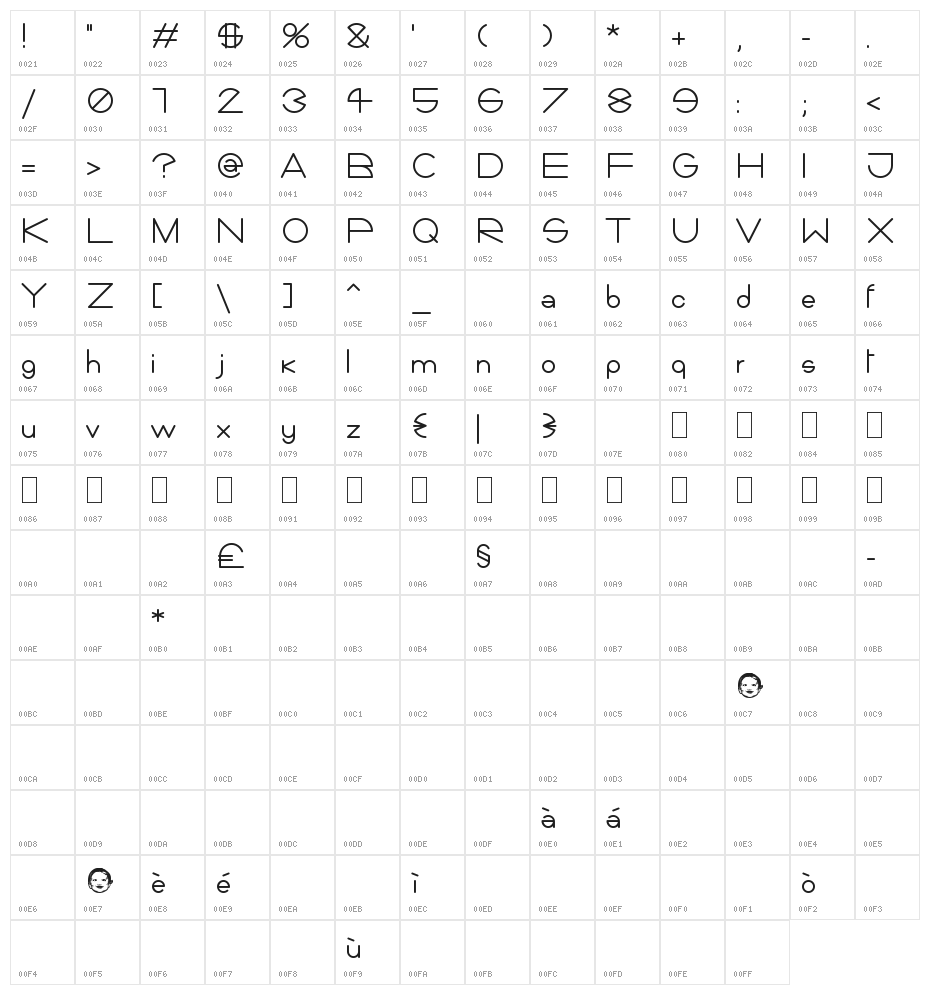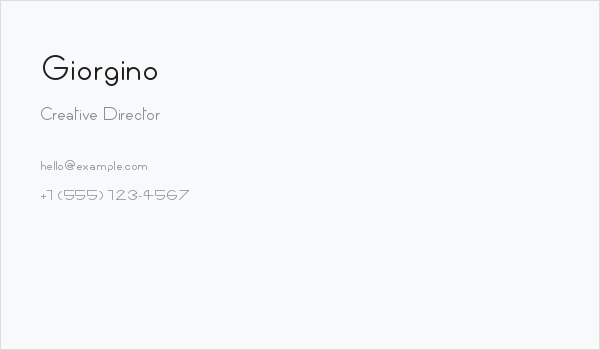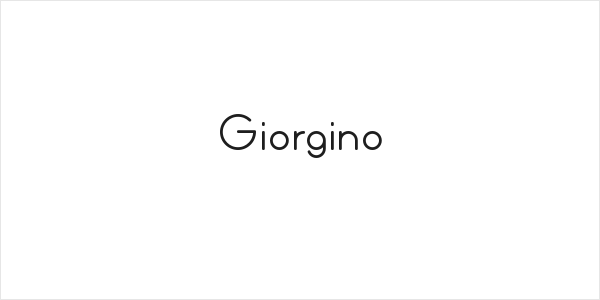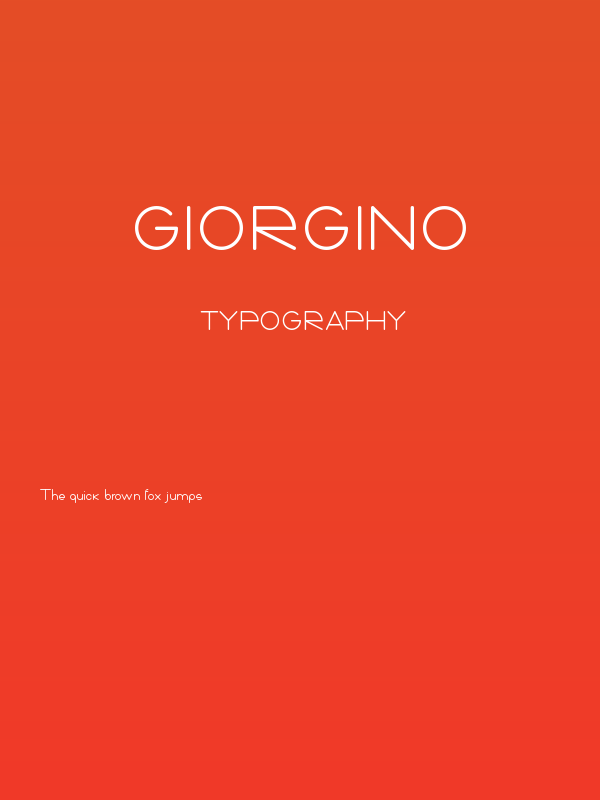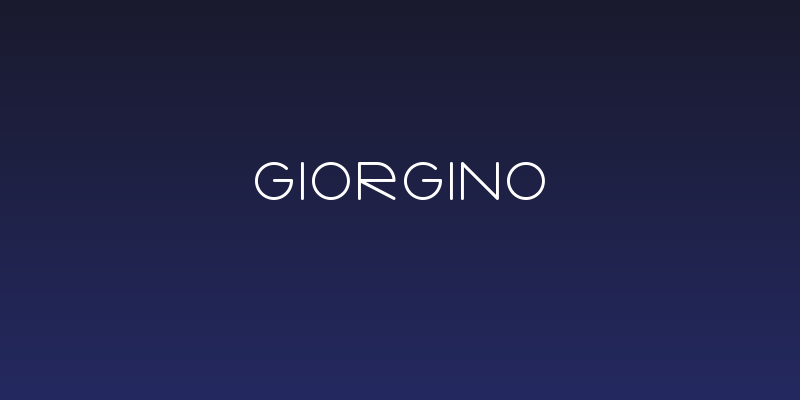
Giorgino Font
Giorgino Description
This font features a modern and sleek design with a geometric structure. The uppercase letters are characterized by clean lines and a uniform stroke width, giving them a contemporary and minimalist appearance. The lowercase letters maintain the same geometric style, with rounded edges that add a touch of softness to the overall look. The numerals are consistent with the alphabet, featuring the same clean and modern design. Special characters are well-integrated, maintaining the font's cohesive aesthetic. This font is highly legible and versatile, suitable for a variety of design applications.
| Proposed Projects | Ideal for branding, advertising, web design, and editorial projects. |